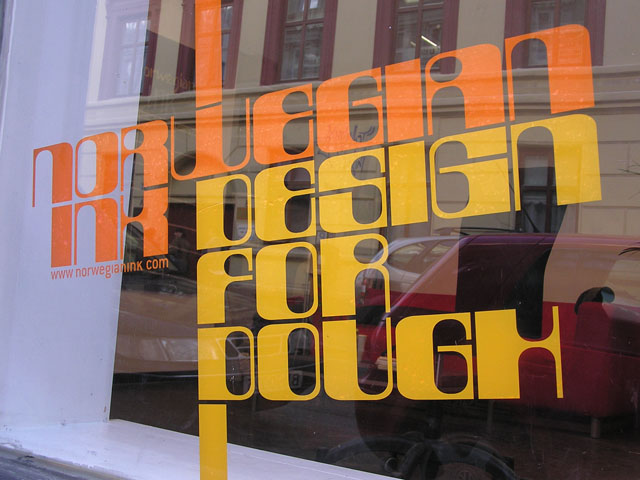
Preview and download Laurel Or Hardy Font. Created by Norwegian Ink / Design for Dough in Fancy Groovy styles with Shareware license.
The font consists of 2 variations - lowercase (laurel) & UPPERCASE (hardy). It was originally designed as a logo-type for our little design agency in Oslo, Norway (see photo illustration). Note that it is based on a strict pattern of vertical thick and thin lines accomplished by shifting between upper- and lowercase glyphs, eg. "desiGN". If requested we will build punctuation and numerals. For now this is merely a display font. This is shareware, hence please share a sample screenshot of your publication if you apply this font in your work; we would love to see it (font@norwegianink.com). |